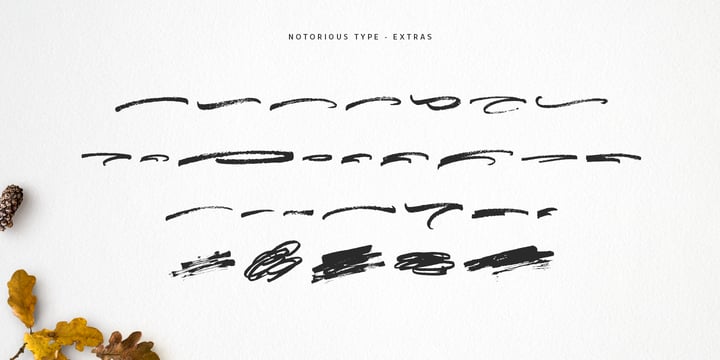
Notorious
Notorious by W Type Foundry
Notorious Font Family was designed by Andrés Vega and published by W Type Foundry. Notorious contains 4 styles and family package options. More about this family
About Notorious Font Family
Notorious is a brush script typeface with features that come from gestural calligraphy plus a touch of personality, therefore, it delivers wider freedom in both rhythm and composition of words. As a result, this typeface is highly suitable to convey expression in a most natural way. Notorious is composed by two styles; the first one is black and the other one textured. Both generate a more natural look when it comes to writing. Every weight includes alternative characters, ligatures, numbers, final forms, swashes, extras and catchwords giving you more options in terms of fostering your creativity. If you are looking to create expressive and gestural messages Notorious is your ideal choice.